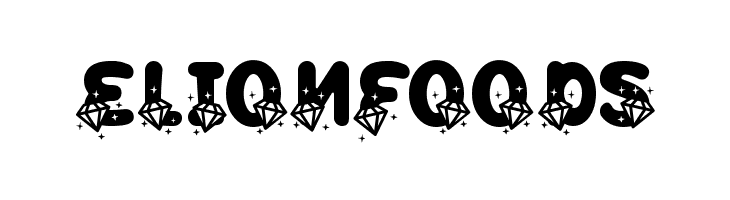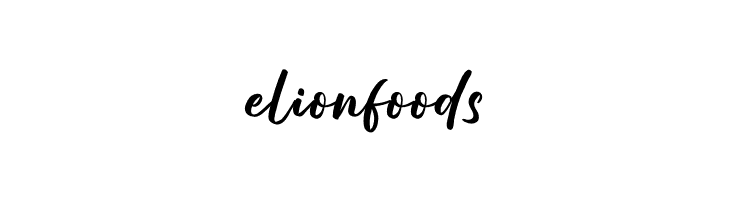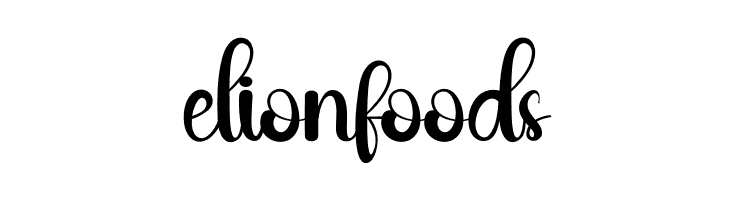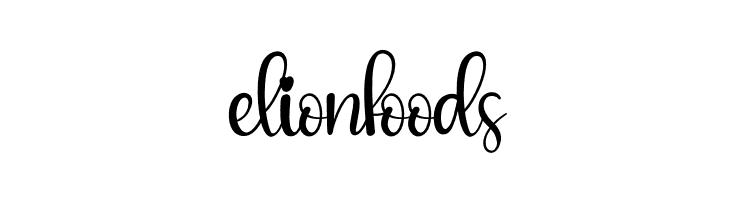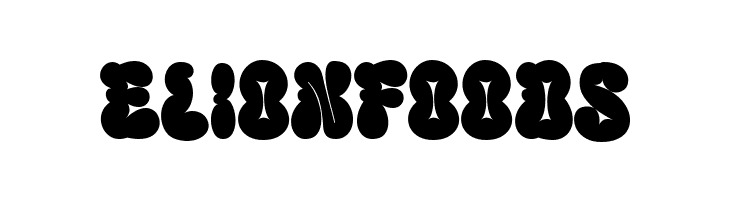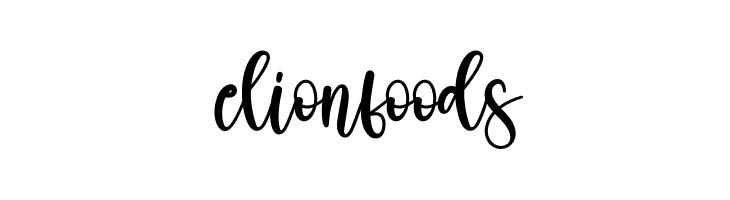
( Fonts by PutraCetol Studio )
A bold, decorative font with diamond embellishments for a playful and luxurious look.
( Fonts by Bluestype Studio )
A lively, handwritten font with elegant, brush-like strokes.
( Fonts by Andi Moz )
A modern, elegant font with tall uppercase and cursive lowercase letters.
( Fonts by Scratchones )
A playful, handwritten font with flowing, interconnected letterforms.
( Fonts by Ikiiko Type )
A bold, playful font with thick, rounded shapes and a whimsical retro style.
( Fonts by Alit Design )
A versatile font combining elegant thin lines with bold, rounded forms.
( Fonts by scratchones )
A lively and expressive handwritten font with fluid, flowing letterforms.
( Fonts by PutraCetol Studio )
A bold, playful font with rounded, bulbous shapes and a whimsical style.
( Fonts by Inermedia Studio )
A playful, handwritten font with a whimsical and dynamic style.
( Fonts by Alpaprana Studio )
A playful handwritten font with smooth, rounded edges and a casual style.